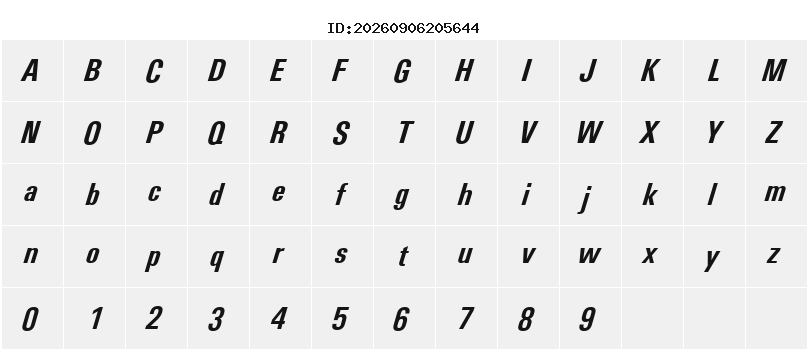
Utah Condensed Preview
• Font Name: Utah Condensed
• Font Style: BoldOblique
• Font ID: Brother : Utah Condensed BoldOblique : 1998
• Full Font Name: Utah Condensed BoldOblique
• PostScript Name: UtahCondensed-BoldOblique
About Utah Condensed.ttf
Utah Condensed.ttf is a modern, elegant sans-serif font designed for ultimate readability and visual harmony. Perfect for branding, headlines, web design, and print materials.